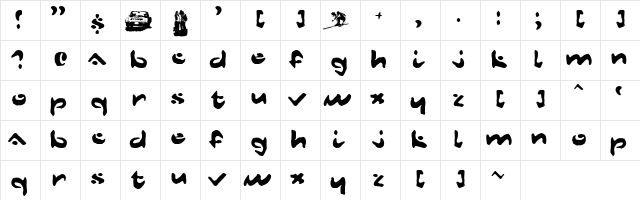
Dust Mites Normal Font Preview
Dust Mites Normal
Dust Mites Normal Font Details
Design Context for Dust Mites Typeface
Dust Mites is a composed and adaptable typeface that performs quietly and consistently across a wide range of design contexts.